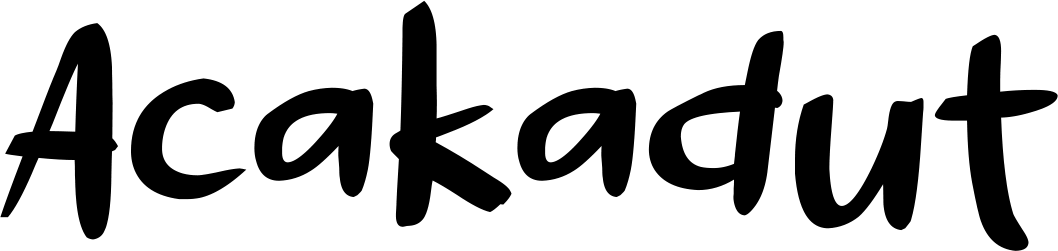
a Acakadut Font
If you are looking for an organic and natural feel in your project which can be anything like a poster, flyer, sign, logo, or even packaging you can use a brush font. From that category, we can offer you a Acakadut which comes with an impressive collection of characters that contains both the uppercase and lowercase of the alphabet, the numbers, and the punctuation marks.